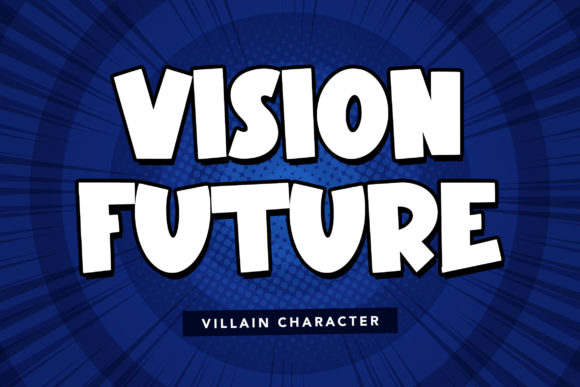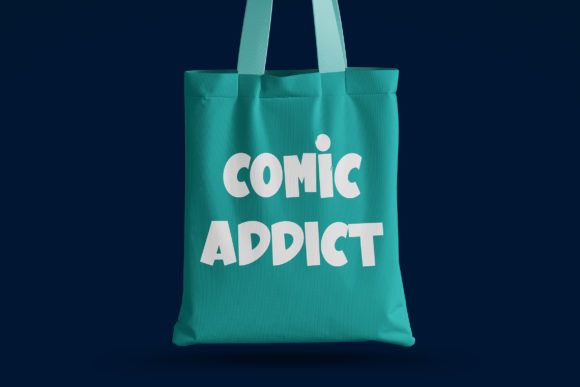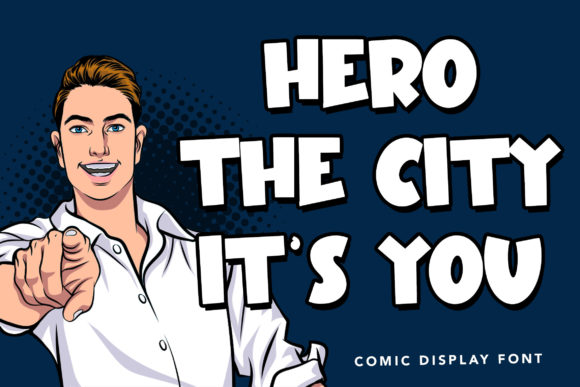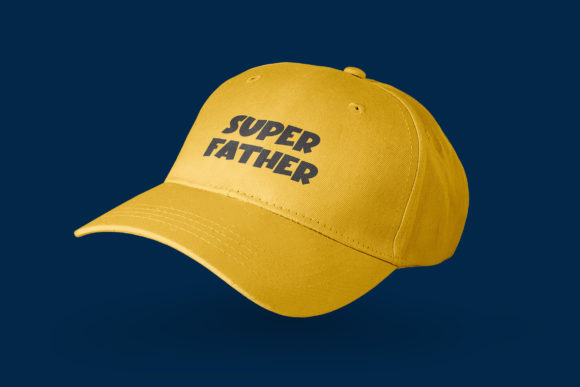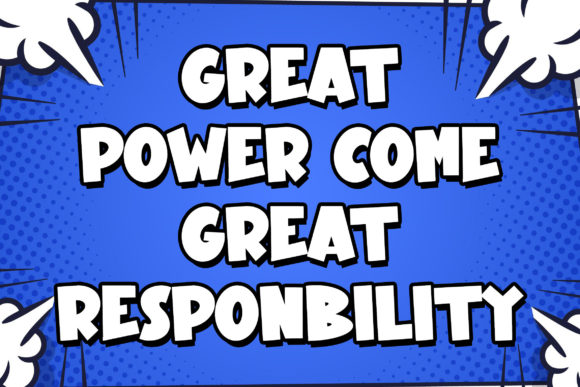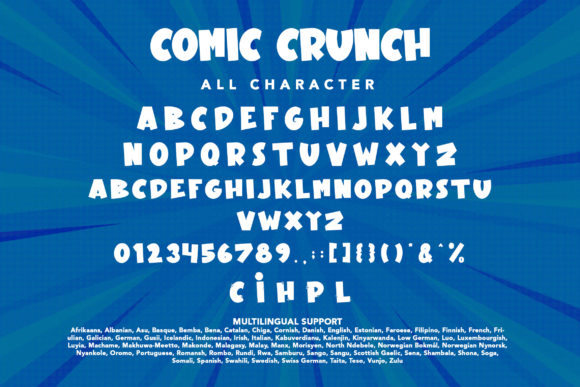
Introducing Comic Crunch Font: The Ultimate Display Font for Creative Projects
Are you a designer, crafty enthusiast, or simply someone who loves to dabble in creative projects? Look no further! We’re excited to introduce you to the Comic Crunch Font, a bold and thick lettered display font that’s sure to elevate your designs and take them to the next level. In this article, we’ll dive into the features, benefits, and uses of Comic Crunch Font, and explore how it can become an incredible asset to your font library.
What is Comic Crunch Font?
Comic Crunch Font is a stunning display font that’s designed to make a statement. Its bold and thick lettering style gives it a unique and eye-catching appearance that’s perfect for a wide range of creative projects. Whether you’re working on a logo, poster, flyer, or social media graphic, Comic Crunch Font is sure to grab attention and leave a lasting impression.
Key Features of Comic Crunch Font
- Bold and Thick Lettering: Comic Crunch Font features bold and thick lettering that’s perfect for creating eye-catching headlines and titles.
- Versatile: This font is incredibly versatile and can be used for a wide range of projects, from logos and posters to social media graphics and crafts.
- Easily Readable: Despite its bold style, Comic Crunch Font is easily readable, making it perfect for use in both digital and print materials.
- Unique Style: The font’s unique style sets it apart from other display fonts, making it a great addition to any font library.
Benefits of Using Comic Crunch Font
So, why should you choose Comic Crunch Font for your creative projects? Here are just a few benefits of using this amazing display font:
- Adds Visual Impact: Comic Crunch Font adds a level of visual impact to your designs that’s hard to achieve with other fonts.
- Increases Engagement: The font’s bold and eye-catching style is sure to grab attention and increase engagement with your audience.
- Versatile and Adaptable: Comic Crunch Font can be used for a wide range of projects, making it a great addition to any font library.
Uses for Comic Crunch Font
So, what can you use Comic Crunch Font for? The possibilities are endless! Here are a few ideas to get you started:
- Logos and Branding: Use Comic Crunch Font to create a bold and eye-catching logo that’s sure to make a statement.
- Posters and Flyers: The font’s bold style makes it perfect for use in posters and flyers that need to grab attention.
- Social Media Graphics: Comic Crunch Font is perfect for use in social media graphics, where it can help increase engagement and drive traffic to your website.
- Crafts and DIY Projects: The font’s unique style makes it perfect for use in craft and DIY projects, such as handmade cards and gift tags.
| Font Name | Comic Crunch Font |
| Author | Hatf Type |